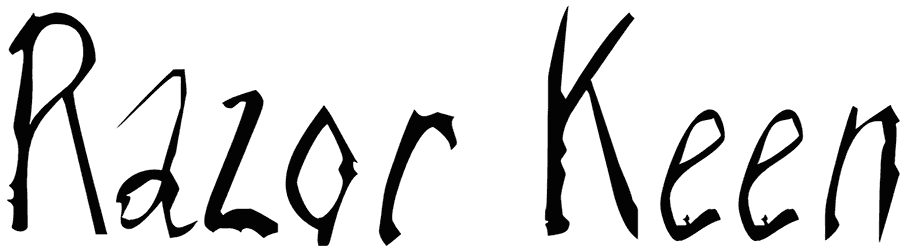
Razor Keen Font
When you look at the Razor Keen font, its entertaining style catches your attention. This horror font has a less-seen design that seems memorable to the viewers.
You may use the Razor Keen in various situations, such as posters, prints on clothing, and flyers. This fancy font’s letters have an eroded form with sharp edges, sending a frightening vibe. So download it now and give your audience an exciting experience.
Razor Keen is a terrifying slasher cacography scribbled on newsprint using a mapping quill. Its frightening style will bring ghastly fear into your message. Some Latin-based European writing systems are supported, including the following languages. Afaan Oromo, Afar, Afrikaans, Albanian, Alsatian, Aymara, Basque, Bemba, Bikol, Breton, Cape Verdean, Creole, Catalan, Cebuano, Chamorro, Chavacano, Danish, Dawan, Dholuo, Dutch, English, Estonian, Faroese, Fijian, Filipino, Finnish, French, Frisian, Friulian, Galician, Genoese, German, Guadeloupean Creole, Haitian Creole, Hiligaynon, Icelandic, Ilocano, Indonesian, Irish, Italian, Jamaican, Kaqchikel, Kikongo, Kinyarwanda, Kirundi, Lombard, Low Saxon, Luxembourgish, Makhuwa, Malay, Ndebele, Neapolitan, Norwegian, Novial, Occitan, Papiamento, Piedmontese, Portuguese, Quechua, Rarotongan, Romansh, Sango, Saramaccan, Sardinian, Scottish Gaelic, Shona, Sicilian, Silesian, Slovak, Slovenian, Somali, Sotho, Spanish, Swahili, Swazi, Swedish, Tagalog, Tetum, Tshiluba, Tsonga, Tswana, Tumbuka, Uzbek (Latin), Venetian, Võro, Walloon, Waray-Waray, Wayuu, Xhosa, Yapese, Zapotec Zulu and Zuni.